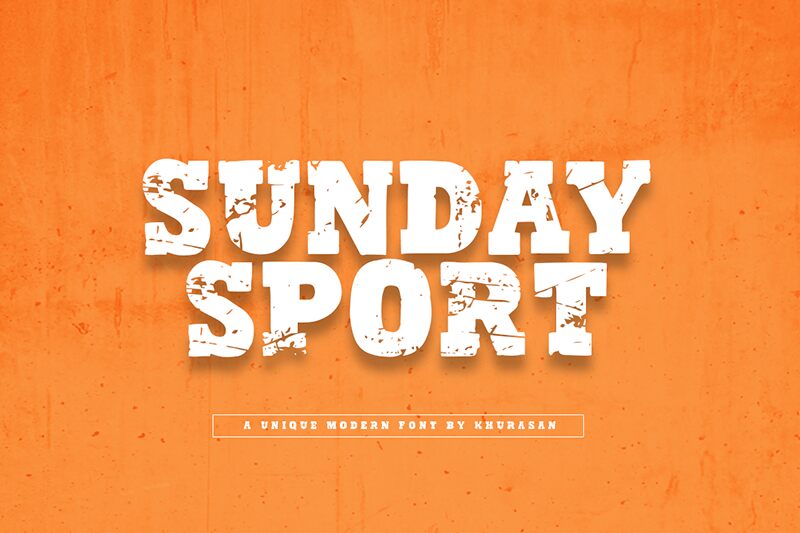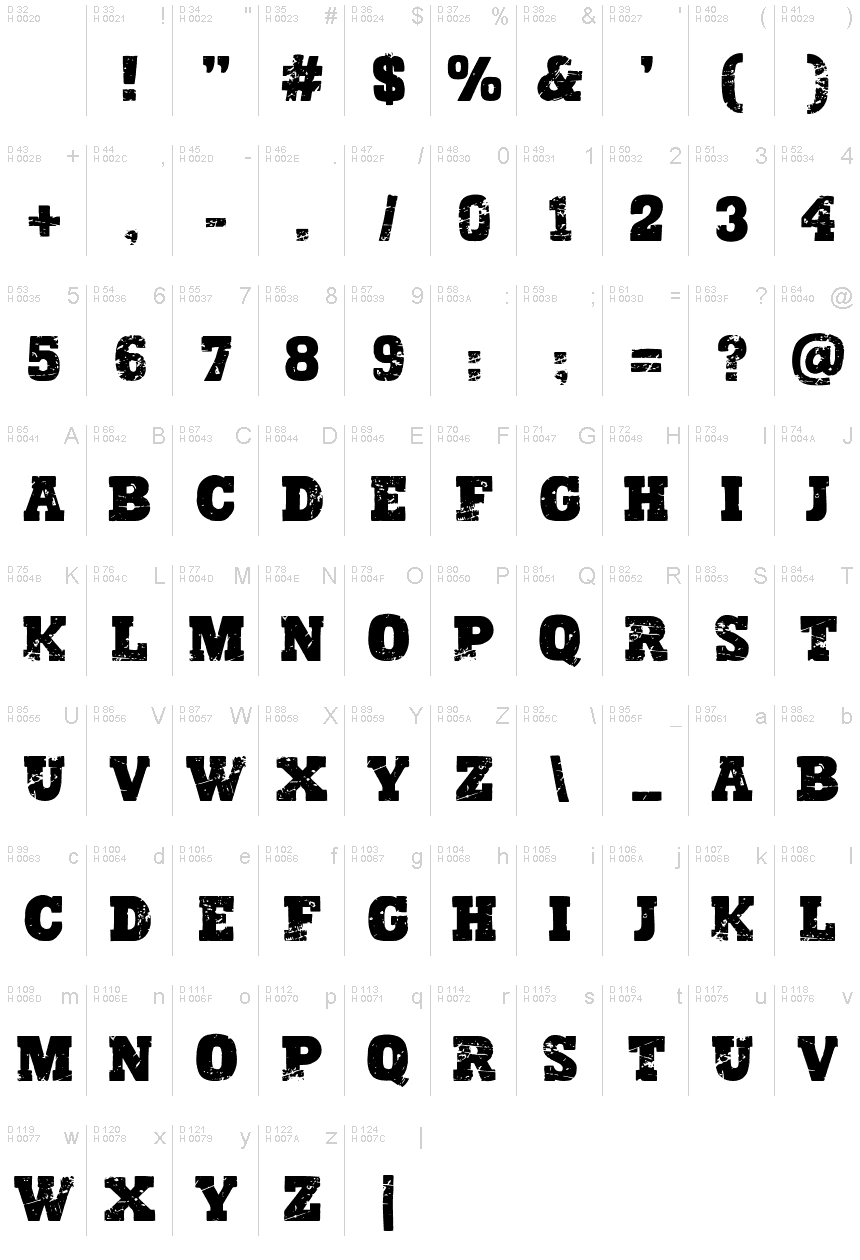
Sunday Sport
Sunday Sport, designed by Khurasan, is an extraordinary display font that exudes a unique sense of vintage charm. With its eroded style and semi-expanded width, this font is perfect for bringing a weathered and rustic aesthetic to your design projects. Its extra-bold weight commands attention and adds a touch of boldness to any creative endeavor.
Whether you're creating retro-inspired posters, eye-catching headlines, or nostalgic branding materials, Sunday Sport will transport your audience to a bygone era while making a lasting impression.